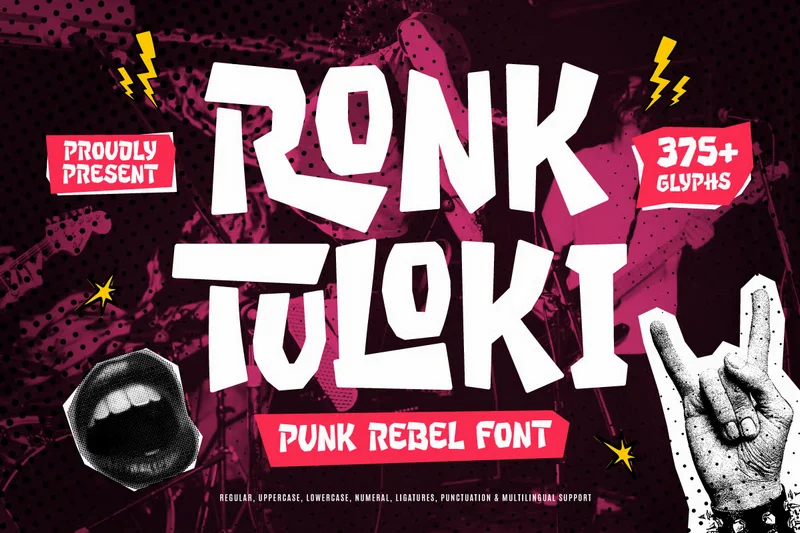
Ronk Tuloki – Rebel Punk
Ronk Tuloki – Rebel Punk Font is a bold and energetic display typeface that captures the raw attitude of punk culture and underground rebellion. Inspired by hand-cut stencils, DIY posters, and rock gig flyers, this font delivers a gritty and expressive look that brings intensity and movement to any design. Each letter feels loud, alive, and ready to break the rules — perfect for visuals that demand attention.
With over 375 glyphs, including uppercase and lowercase letters, numerals, ligatures, punctuation, and full multilingual support, Ronk Tuloki offers both power and versatility. Its uneven, handcrafted shapes create an authentic punk vibe while maintaining readability, making it suitable for both digital and print projects that aim to stand out.
Ronk Tuloki works beautifully for music posters, album covers, zines, flyers, event promotions, or branding that celebrates individuality and raw creative energy. It’s the perfect typeface for designers who want to express rebellion, boldness, and originality through strong, impactful typography.